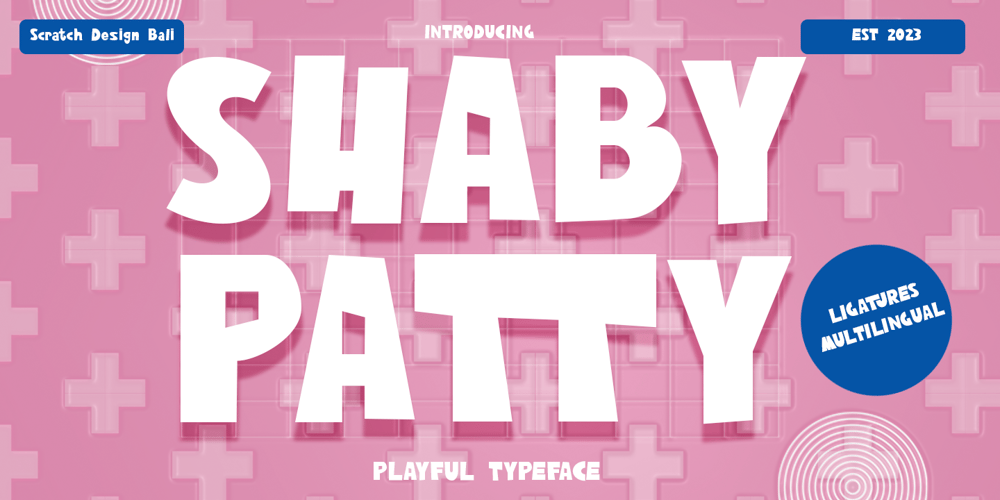
Shabby Patty Font Family was designed by Gitayogi Irhandi and published by Scratch Design. Shabby Patty contains 1 styles and family package options. Shabby Patty is a playful, cheerful and cute font that is ready to accompany your design projects. This font also has retro and vintage characteristics that are perfect for 90s design. This font will be perfect for quotes, cover designs, merchandise, posters, creative posts, birthday cards, packaging, logos, labels and more.What you’ll get: Uppercase and lowercase Numbers and punctuation Multilingual support Ligatures We highly recommend using a program that supports OpenType features and Glyphs panels like many Adobe apps, so you can see and access all Glyph variations.We hope you enjoy our font!